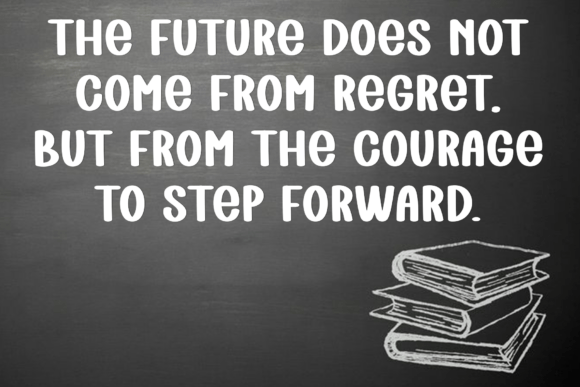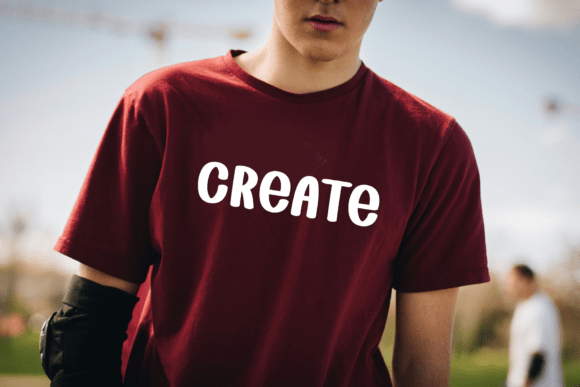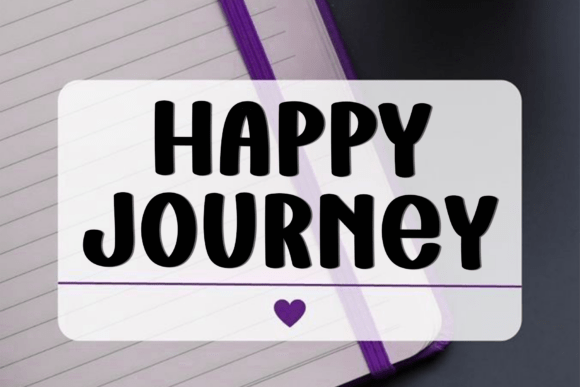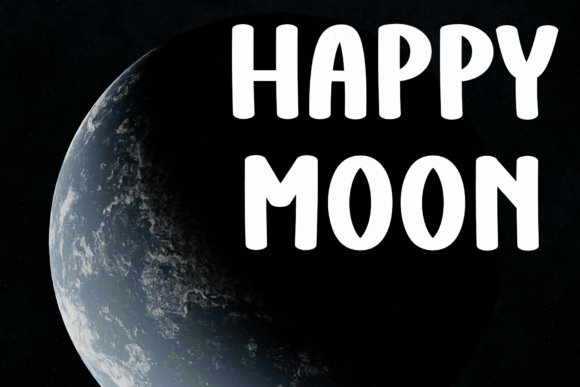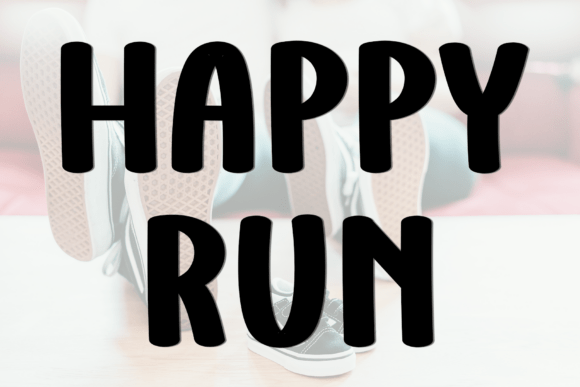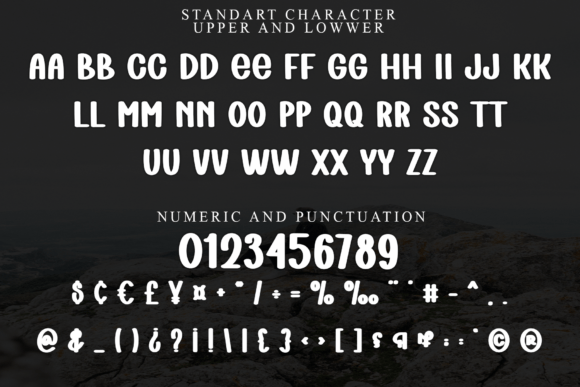
Bolding Series Font: Make a Big Statement with Confidence and Friendly Energy
In the world of typography, a bold font can make all the difference in grabbing attention and conveying a message with impact. Introducing Bolding Series, a robust and high-impact display font designed to bring a sense of confidence and friendly energy to your creative projects. With its ultra-thick, rounded letterforms and subtle, organic “notches” on the stems, this typeface strikes a perfect balance between industrial strength and an approachable, “hand-softened” aesthetic.
The Characteristics of Bolding Series
Bolding Series is characterized by its massive weight and solid presence, making it an exceptional choice for a variety of applications. The font features:
- Ultra-thick, rounded letterforms that exude confidence and friendliness
- Subtle, organic “notches” on the stems, adding a touch of warmth and approachability
- A perfect balance between industrial strength and a “hand-softened” aesthetic
- A massive weight and solid presence that demands attention
Perfect for Bold and Eye-Catching Projects
Bolding Series is perfect for designers and crafters looking to make a big statement with their creative projects. Its powerful and “larger-than-life” personality makes it an ideal choice for:
- Bold streetwear branding: Create eye-catching logos and labels that stand out in a crowded market
- High-visibility event posters: Grab attention and generate buzz with bold and colorful posters
- Playful athletic logos: Add a touch of friendliness and approachability to your sports branding
- Standout social media headlines: Cut through the noise and make your message heard with bold and attention-grabbing headlines
A Font that Delivers a Powerful yet Warm Personality
Bolding Series delivers a powerful and “larger-than-life” personality that remains warm and inviting. This font is perfect for brands that want to make a big statement with a creative and modern twist. Whether you’re looking to create a bold logo, eye-catching poster, or engaging social media content, Bolding Series has got you covered.
Why Choose Bolding Series?
So why choose Bolding Series over other bold fonts? Here are just a few reasons:
- Unique aesthetic: Bolding Series offers a unique blend of industrial strength and approachability, making it perfect for brands that want to stand out
- High-impact visibility: The font’s massive weight and solid presence ensure that your message gets seen and heard
- Flexibility: Bolding Series can be used for a wide range of applications, from branding and advertising to packaging and digital media
- Easy to read: Despite its bold nature, Bolding Series remains easy to read, even at smaller sizes
In conclusion, Bolding Series is a robust and high-impact display font that’s perfect for designers and crafters looking to make a big statement with their creative projects. With its unique aesthetic, high-impact visibility, flexibility, and ease of readability, this font is sure to become a go-to choice for bold and eye-catching designs. So why wait? Try Bolding Series today and take your designs to the next level!